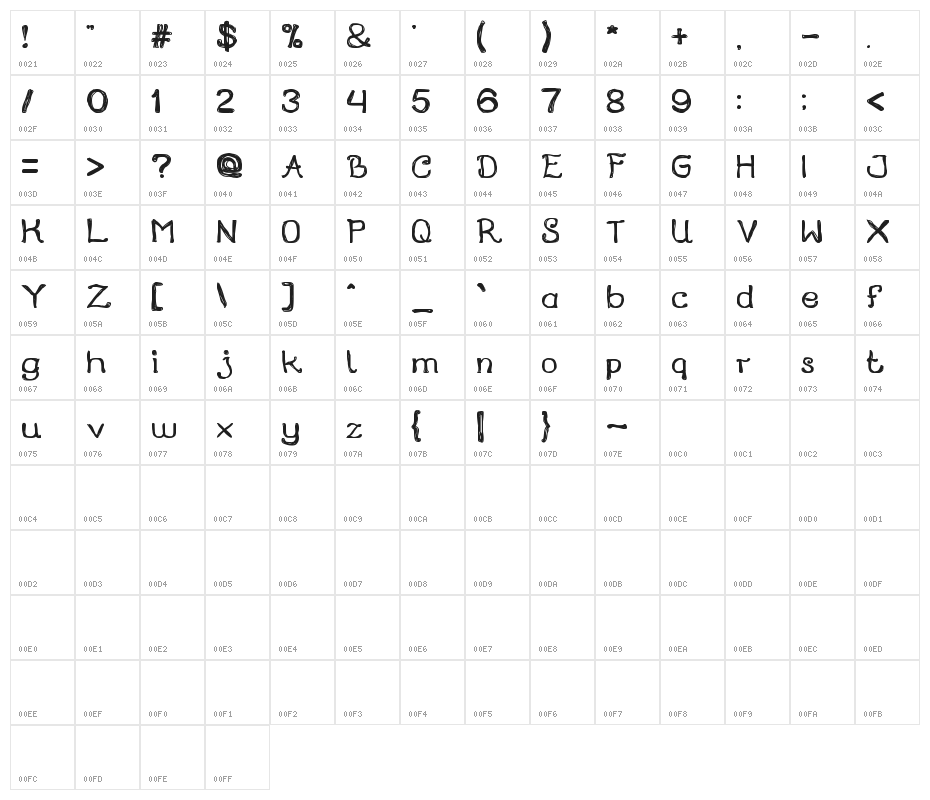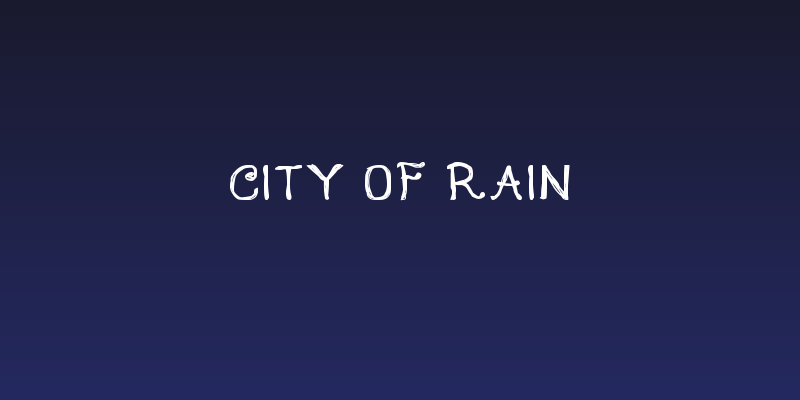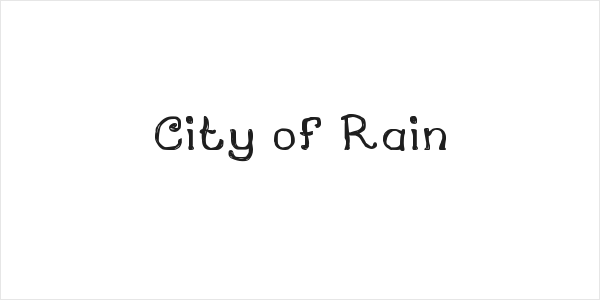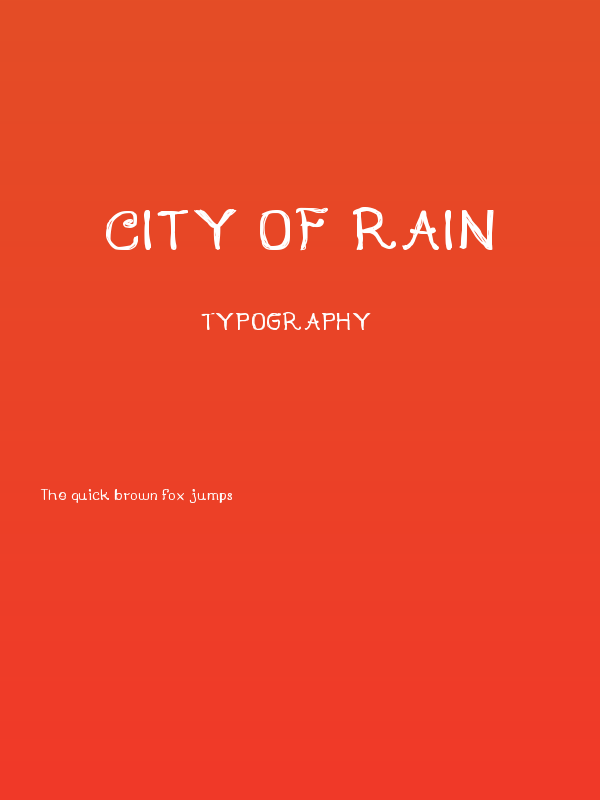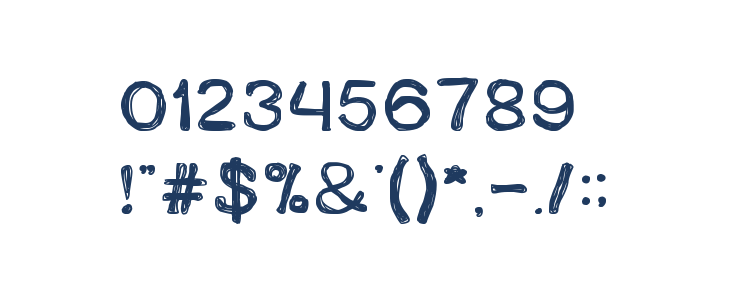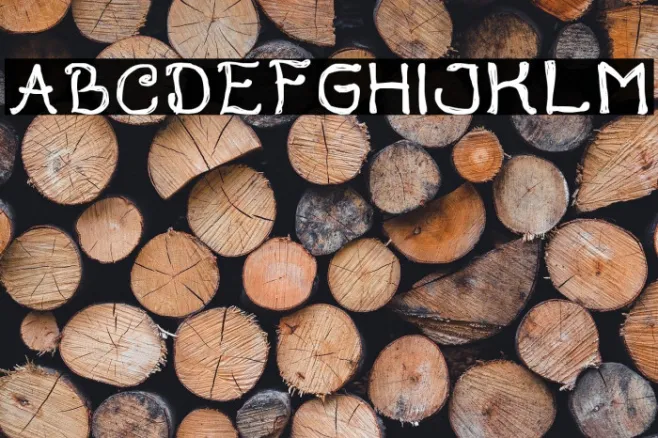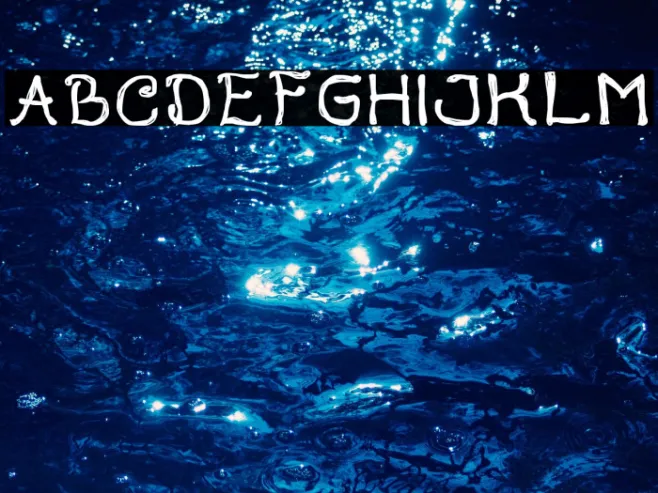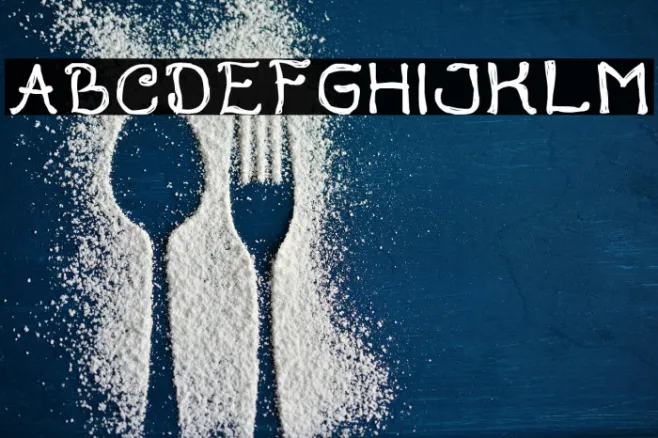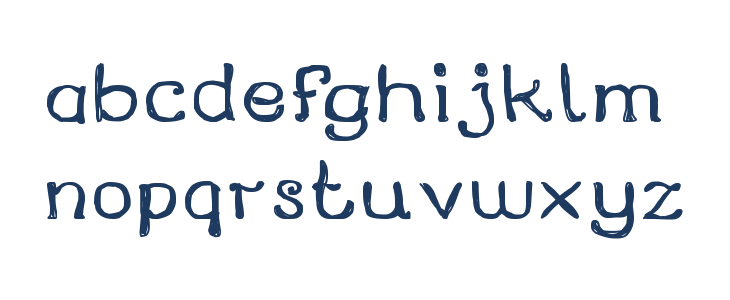
City of Rain Font
City of Rain Description
This font features a playful and artistic style, characterized by its irregular and hand-drawn appearance. The letters have a whimsical quality, with varying stroke thicknesses and slightly uneven baselines, giving it a casual and organic feel. The uppercase and lowercase letters maintain a consistent style, while the numerals and special characters complement the overall design. This font's unique charm makes it suitable for creative and informal projects, where a touch of personality is desired.
| Proposed Projects | Ideal for children's books, creative posters, greeting cards, and artistic branding. |